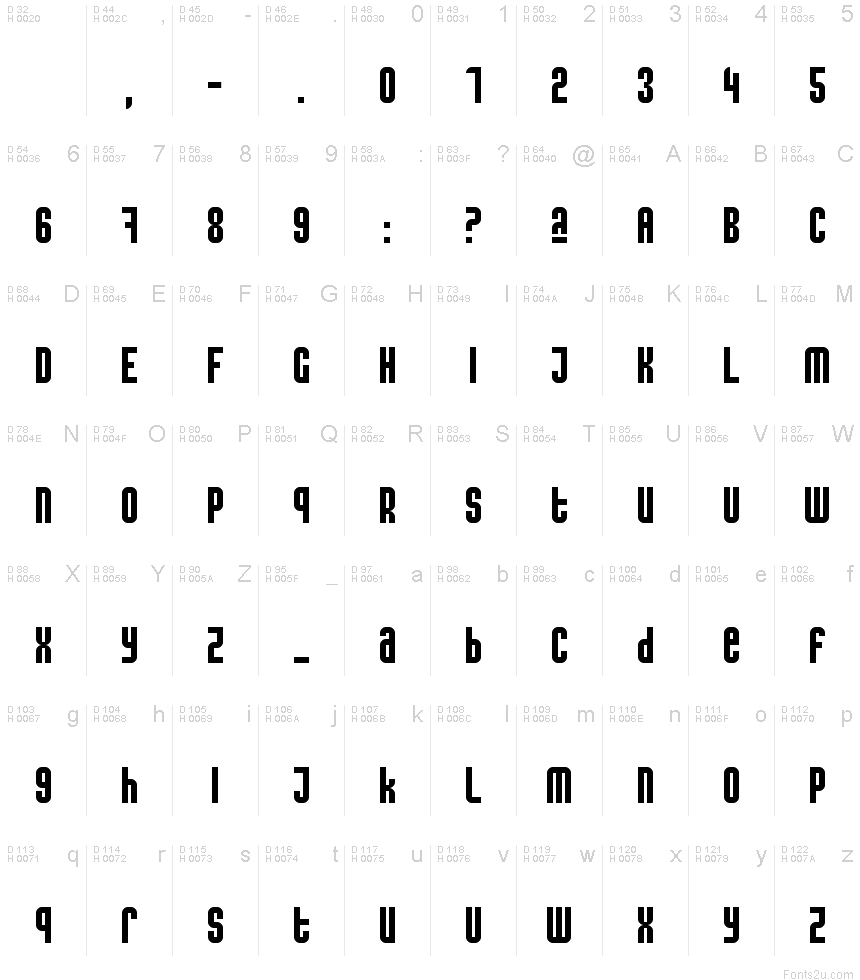
caseconected
Caseconected font by Stefan Claudius for Phantomphonts is a free modern display sans typeface with a tall, ultra-compact rhythm and chunky rectangular curves. Its narrow columns of black feel like stacked modules, creating a dense, industrial texture that reads as both retro and sharply futuristic.
Using Caseconected in big, confident sizes makes headlines, techno gig posters, gaming brands, packaging, and bold web banners snap into focus. This free font loves generous margins and simple color blocks; pair it with a clean geometric sans in smaller text to keep things readable.
by stefan claudius for phantomphonts 2001